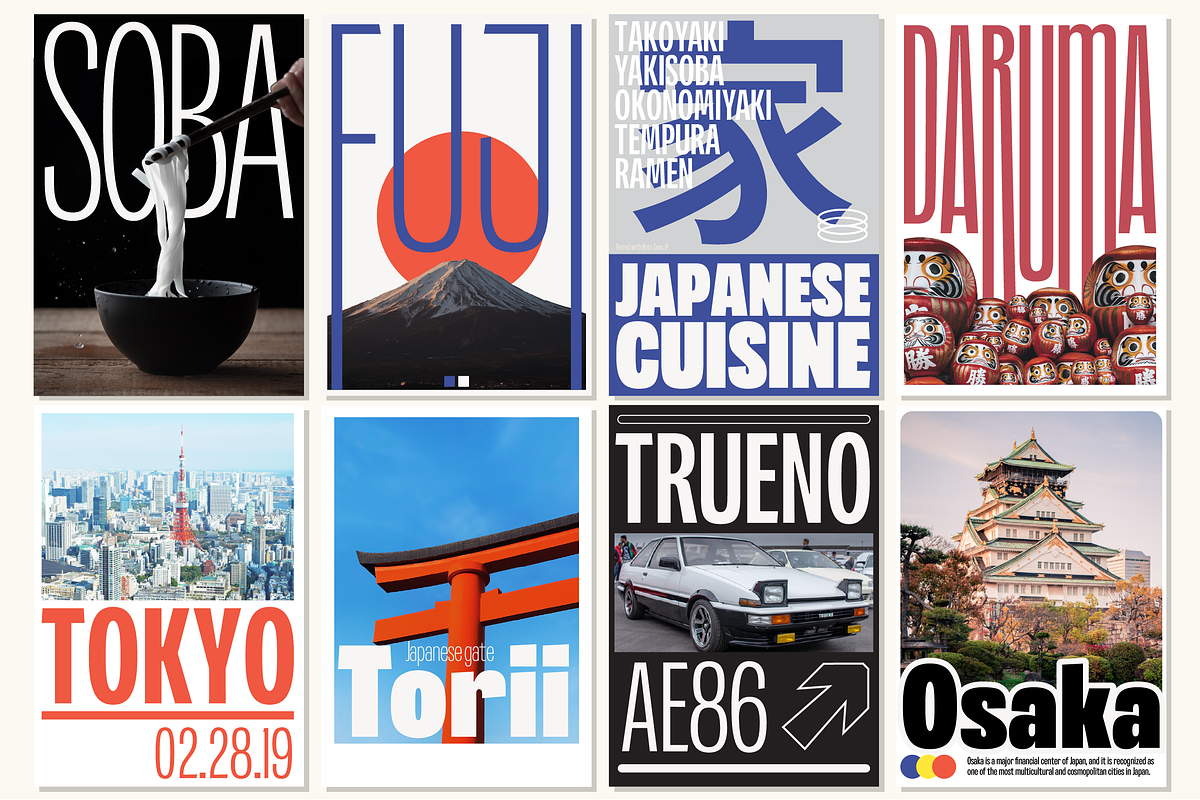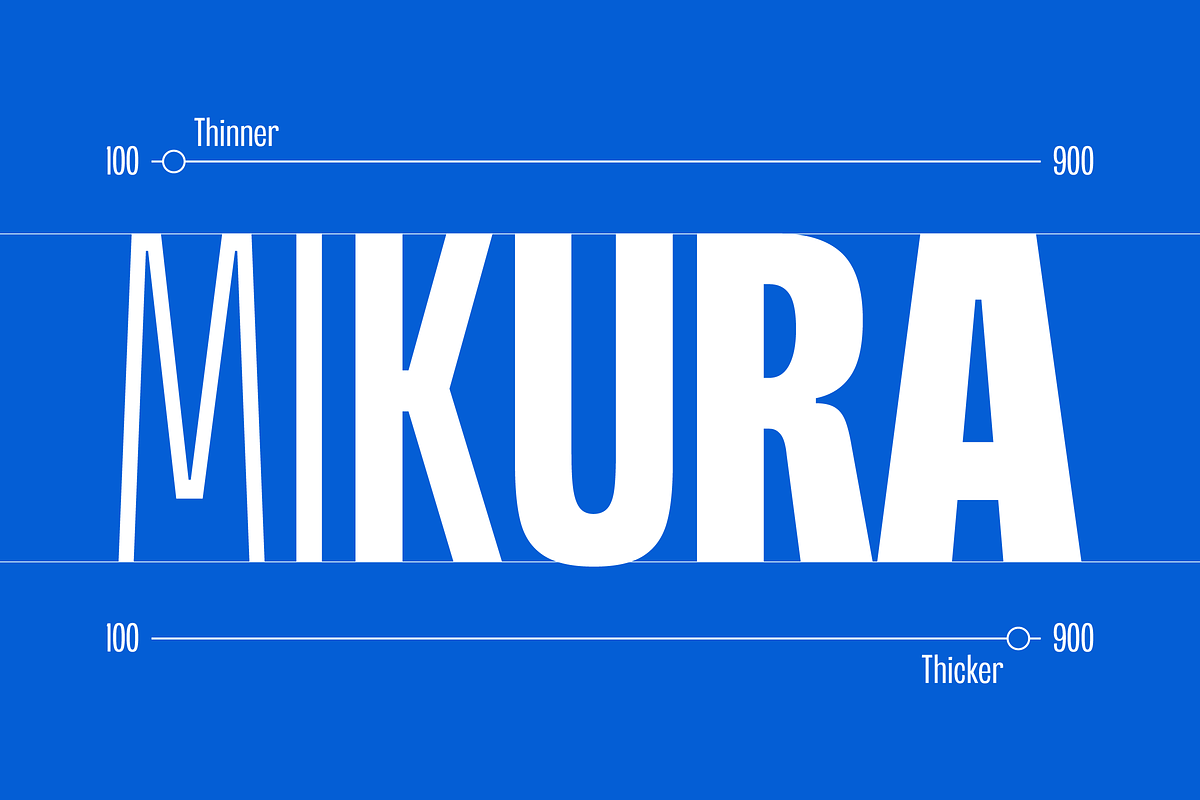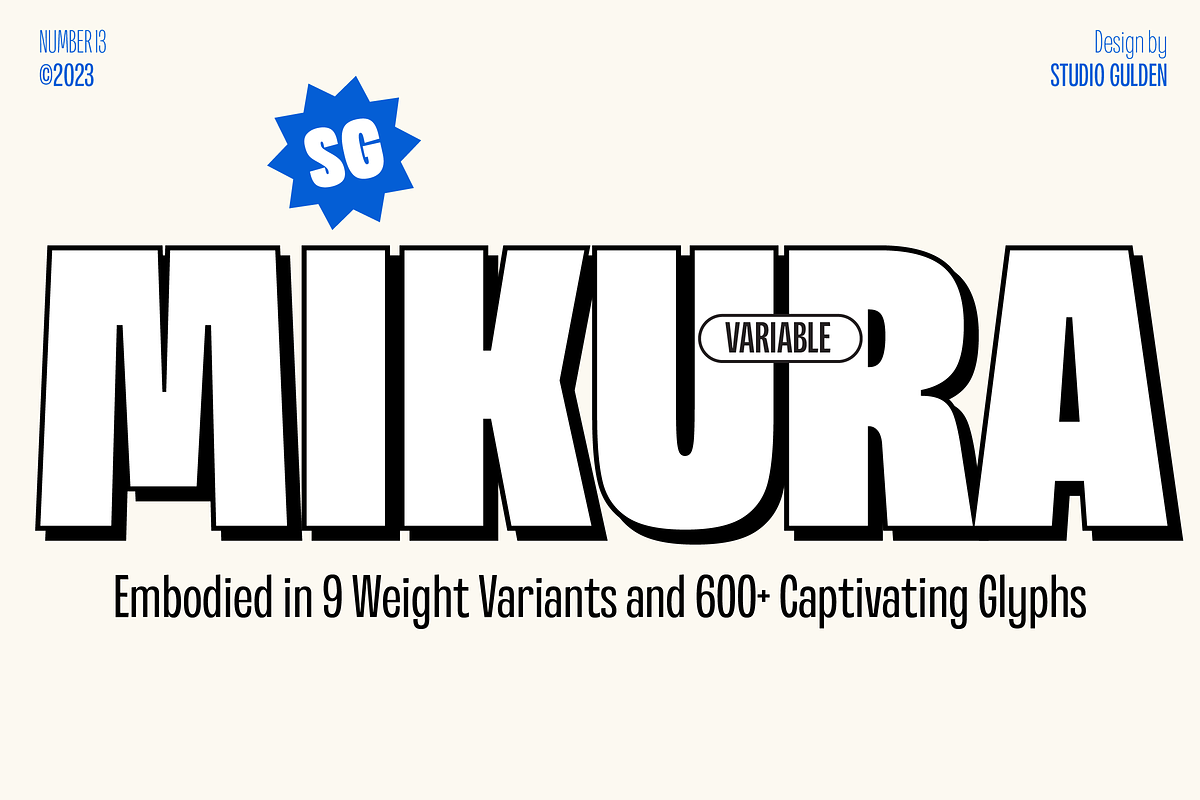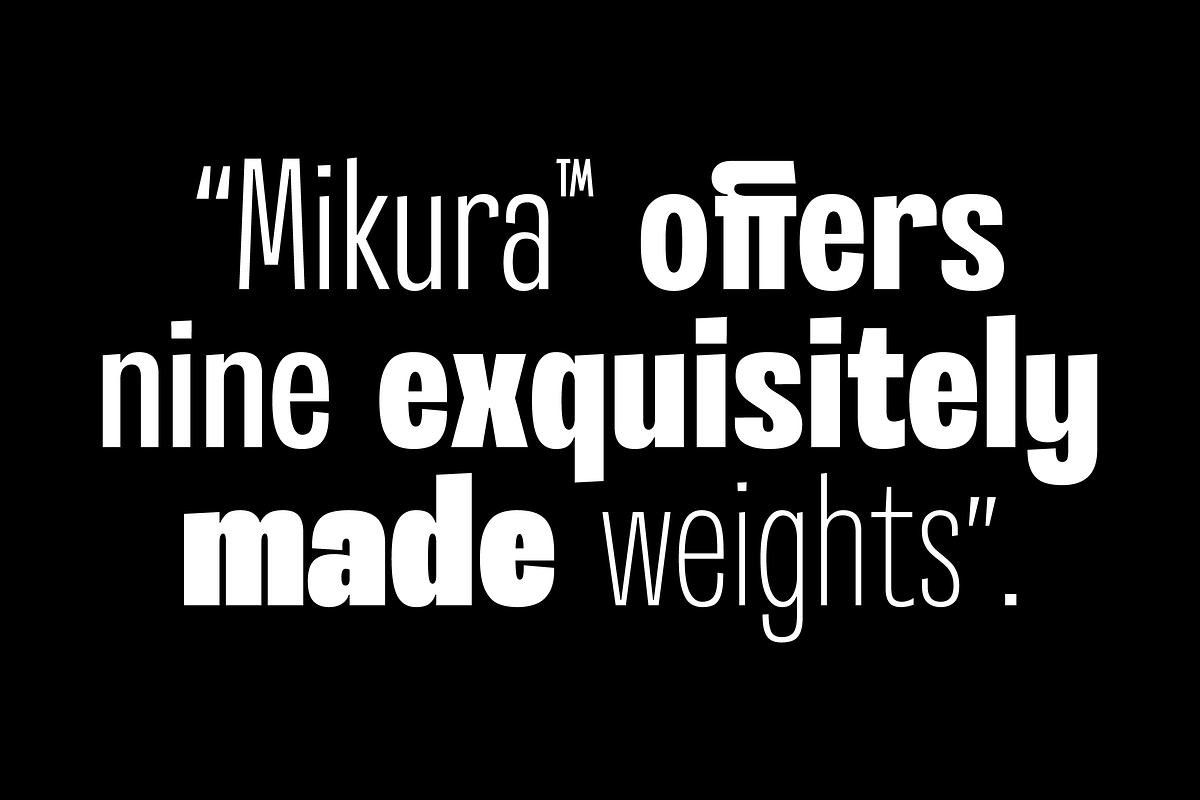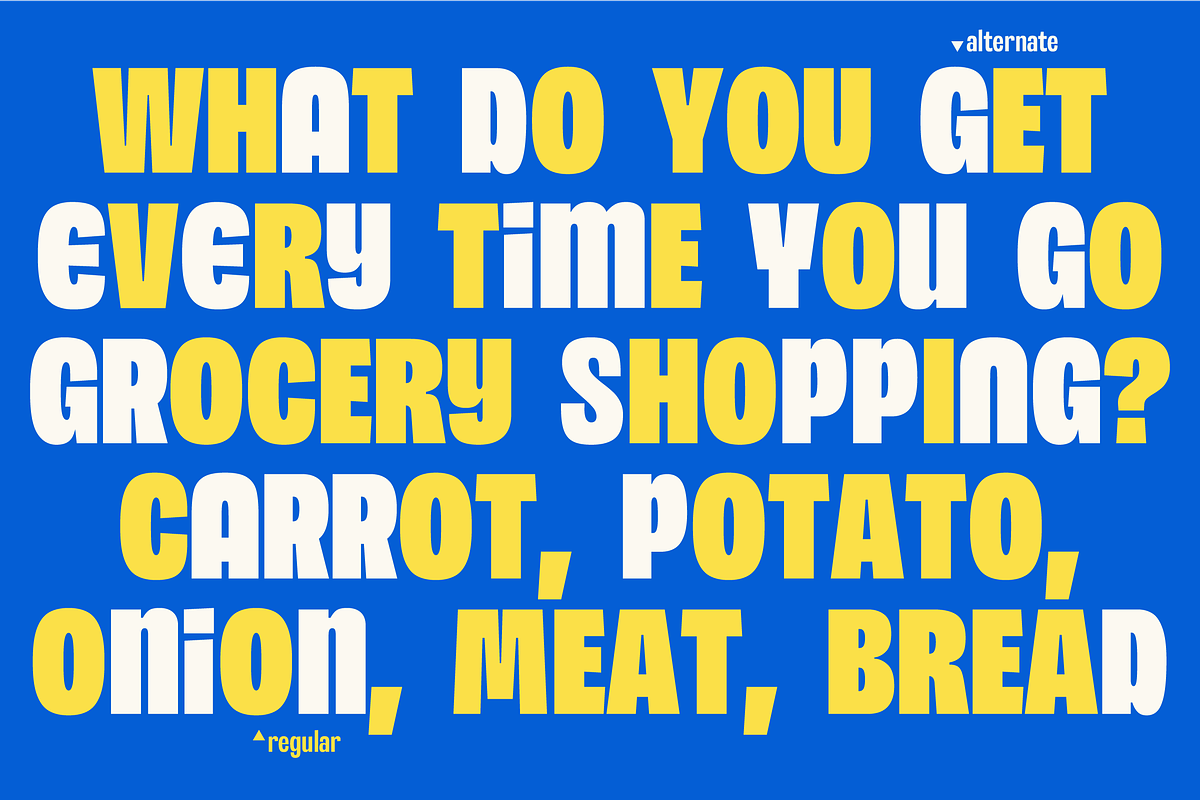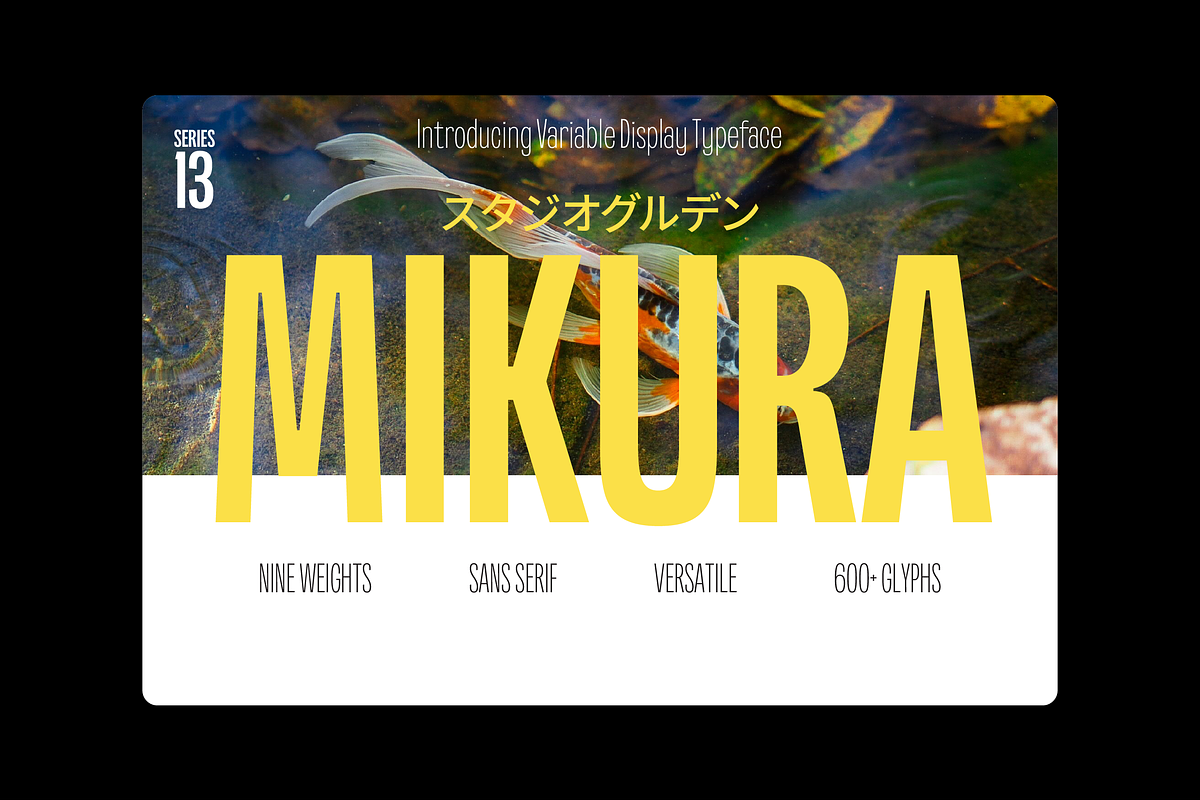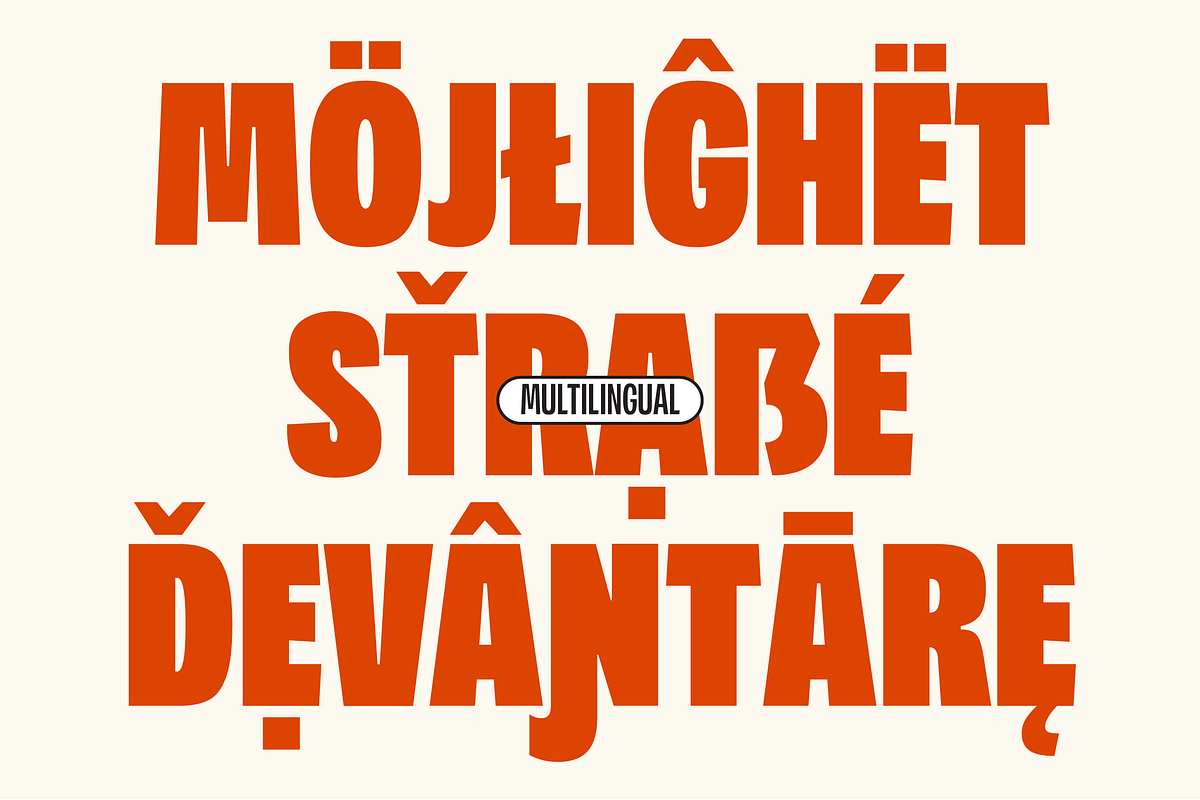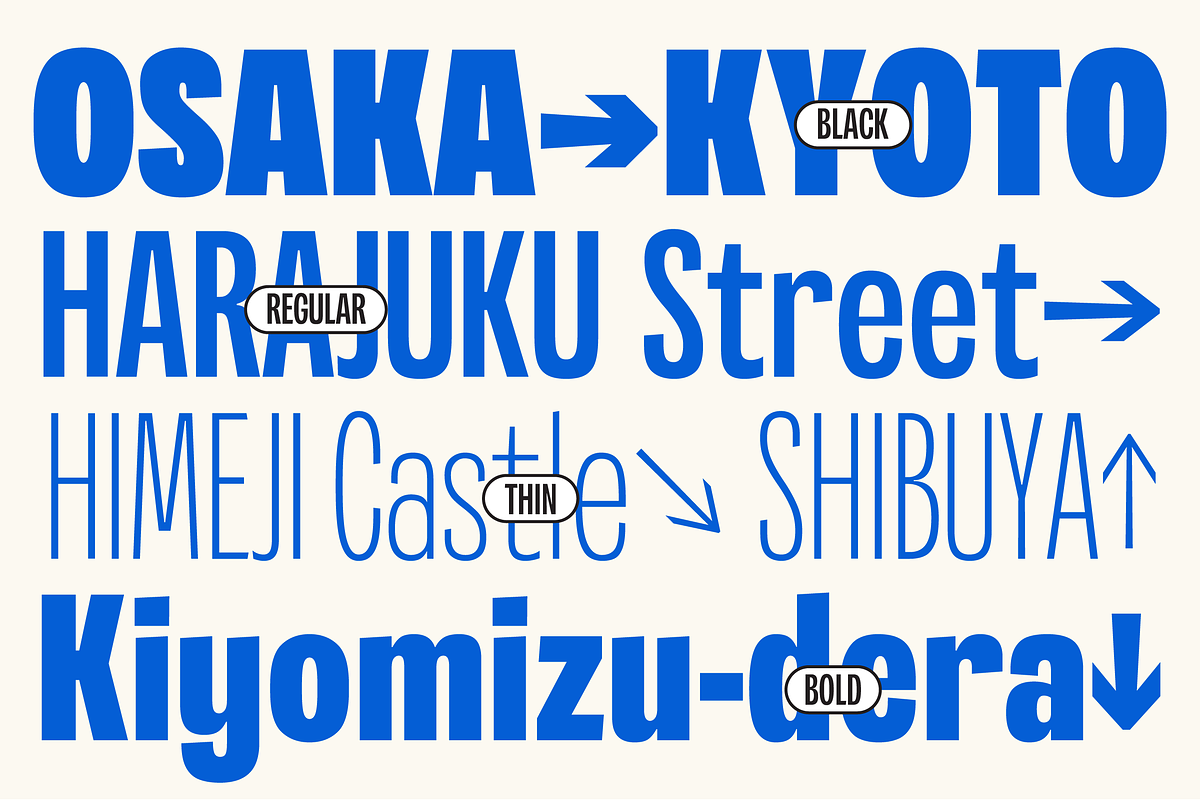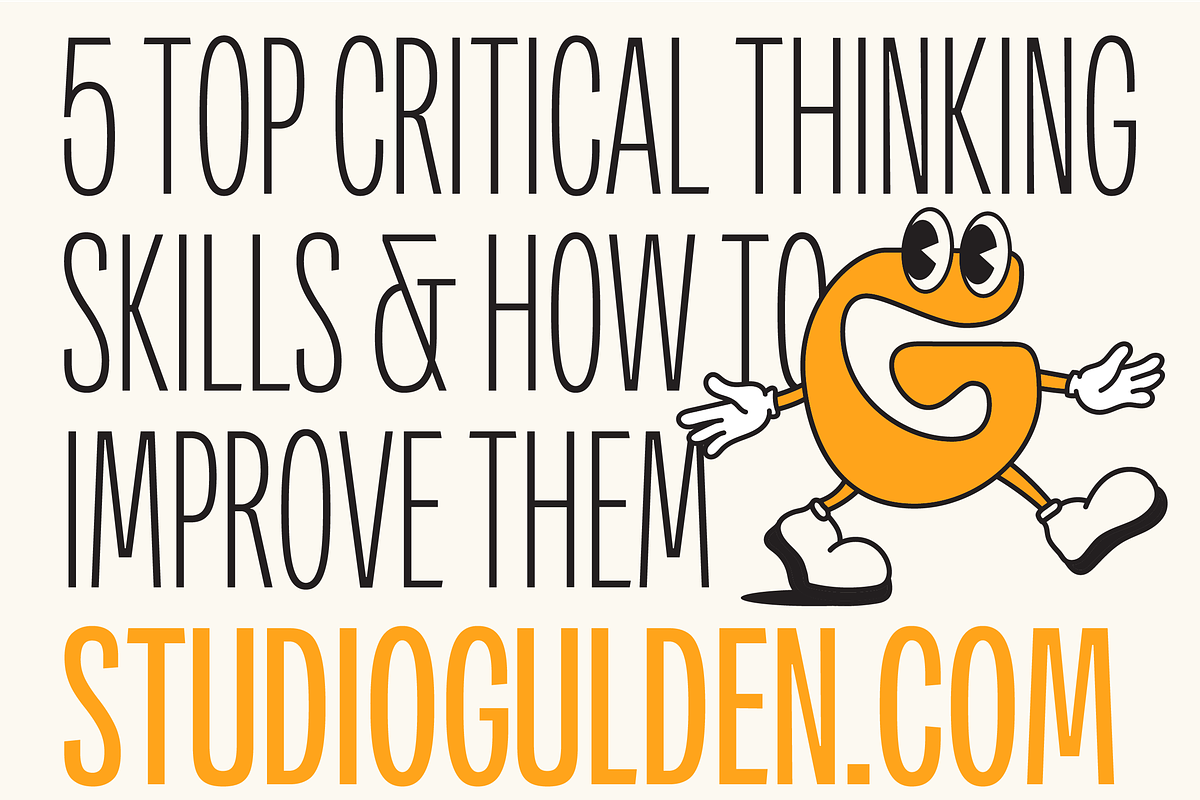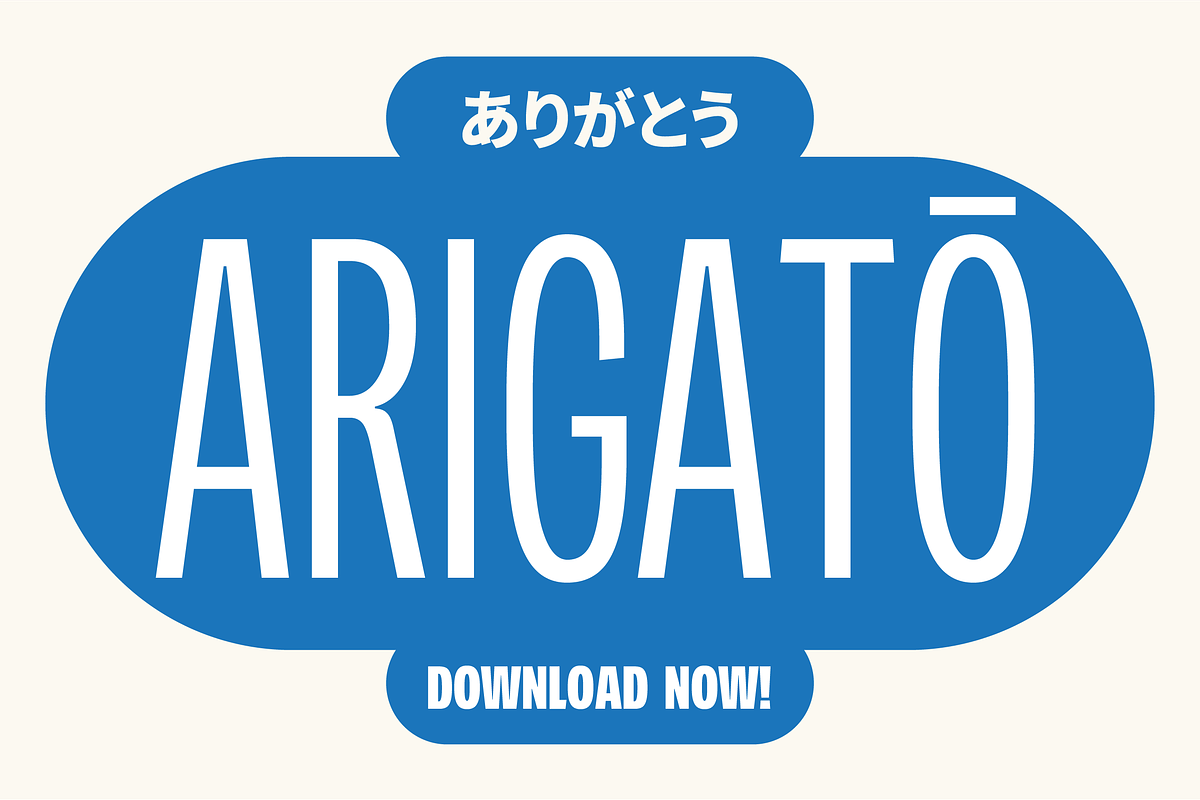
SG - MIKURA
Introducing SG Mikura: Redefine Possibilities with Typography. Elevate your designs with the perfect blend of variability and versatility offered by our brand new font. With 9 meticulously crafted weights and over 600 meticulously designed glyphs, your creativity knows no bounds. From elegant finesse to bold statements, let SG Mikura be the cornerstone of your visual masterpiece. Discover the art of expression through typography today.